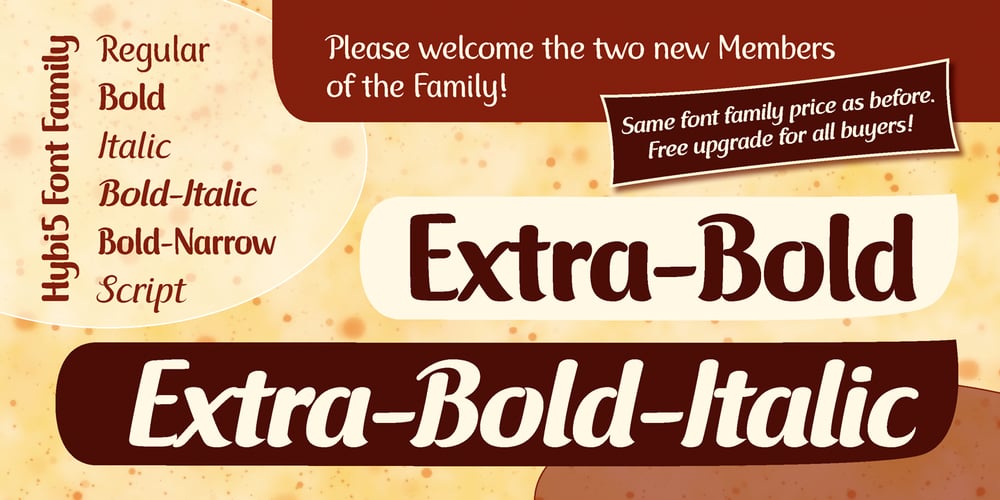
Hybi5 Font Family was designed by Peter Hübner and published by Hybi-Types. Hybi5 contains 8 styles and family package options. The Hybi5 font family can be described as a “crossover” between Antiqua, Grotesque and Brushscript with characteristics from all of this genres. My aim was to design friendly and versatile fonts, which can be used for headlines or slogans as well as for some longer texts. To make the fonts useful for as many languages as possible, I added a lot of exotic accents. All styles contain the whole “Adobe Latin 3 (CE)” character set plus a few letters from “Adobe Latin 4”. A lot of ligatures prettify the look of the fonts. Alternate uppercase letters in the script style might do the same. If you are a professional designer, you will surely appreciate the thousands of kerning pairs within each style, which will make your work easier. I recommend to set Kerning to “metric” and spacing to “zero” in your layout app. Back in 2015 I worked on the first sketches of “Hybi5” using Adobe Illustrator. “Fontself Maker”, an extension for Illustrator, was used to convert the drawings into font-files. This tool can only create “OTF” font files. For this reason there are no “TTF” versions. It’s not the first font I have ever made, but the first to be distributed commercially.